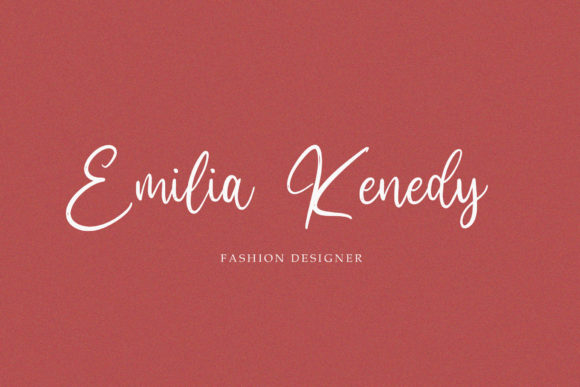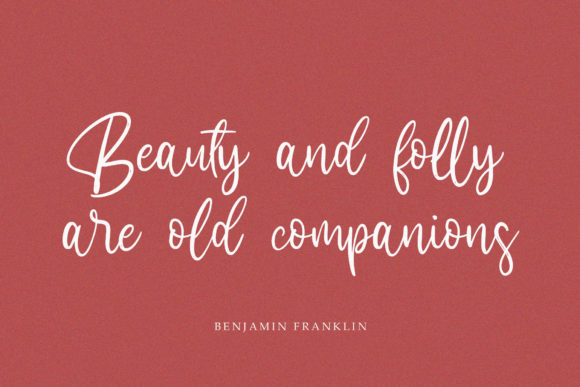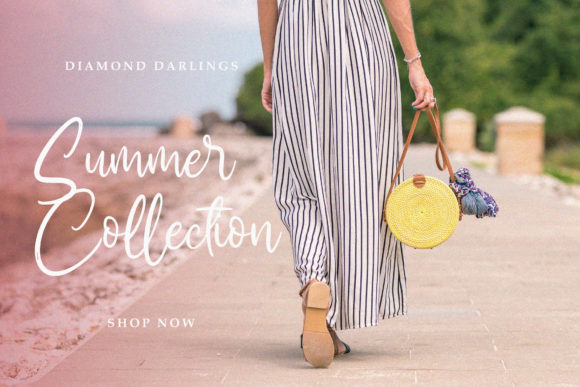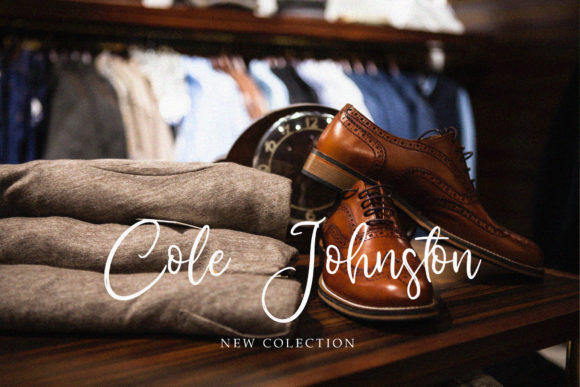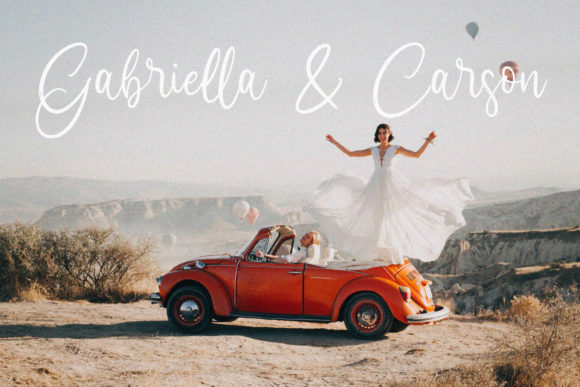
Gattegher Font: Elevate Your Designs with Elegance and Sophistication
In the world of typography, a font can make or break a design. For designers and crafters looking to add a touch of elegance and sophistication to their projects, the Gattegher font is an excellent choice. This beautiful, handwritten font is designed to impress, with its flowing lines, gorgeous glyphs, and stunning alternates.
What is Gattegher Font?
Gattegher is an elegant and flowing handwritten font that exudes class and sophistication. With its PUA (Private Use Area) encoding, accessing all the glyphs and swashes is effortless, making it easy to use and customize. This font features a varying baseline, smooth lines, and gorgeous glyphs that will take your designs to the next level.
Key Features of Gattegher Font
- Elegant and Flowing Design: Gattegher boasts a beautiful, handwritten design that flows effortlessly across the page.
- PUA Encoded: With PUA encoding, you can access all the glyphs and swashes with ease, giving you maximum flexibility and creative control.
- Varying Baseline: The font’s varying baseline adds a touch of organic, handwritten charm to your designs.
- Smooth Lines and Glyphs: Gattegher’s smooth lines and gorgeous glyphs make it perfect for designs that require a high level of elegance and sophistication.
- Stunning Alternates: The font comes with stunning alternates that allow you to mix and match different styles to create a unique look.
Why Choose Gattegher Font?
So, why should you choose Gattegher font for your next design project? Here are just a few reasons:
- Classy Calligraphic Influences: Gattegher maintains its classy calligraphic influences while feeling contemporary and fresh, making it perfect for a wide range of design applications.
- Contemporary and Fresh: The font’s modern take on traditional calligraphy makes it ideal for designers looking to create unique and eye-catching designs.
- Easy to Use: With its PUA encoding and user-friendly design, Gattegher is easy to use, even for those with limited design experience.
- Highly Versatile: The font is highly versatile, making it suitable for a wide range of design applications, from branding and packaging to wedding invitations and more.
How to Use Gattegher Font in Your Designs
Using Gattegher font in your designs is easy. Here are a few tips to get you started:
- Pair it with Other Fonts: Gattegher pairs well with other fonts, so don’t be afraid to experiment with different combinations to find the perfect look for your design.
- Experiment with Glyphs and Swashes: With its PUA encoding, you can access all the glyphs and swashes with ease, allowing you to add a personal touch to your designs.
- Use it for Branding and Packaging: Gattegher is perfect for branding and packaging designs that require a high level of elegance and sophistication.
- Try it for Wedding Invitations: The font’s elegant and flowing design makes it ideal for wedding invitations and other formal events.
In conclusion, Gattegher font is an excellent choice for designers and crafters looking to add a touch of elegance and sophistication to their projects. With its flowing lines, gorgeous glyphs, and stunning alternates, this beautiful handwritten font is sure to impress. Whether you’re working on a branding project, wedding invitation, or packaging design, Gattegher is the perfect choice.
So, fall in love with Gattegher font and bring your projects to the highest levels! With its classy calligraphic influences, contemporary feel, and ease of use, this font is sure to become a favorite in your design arsenal.